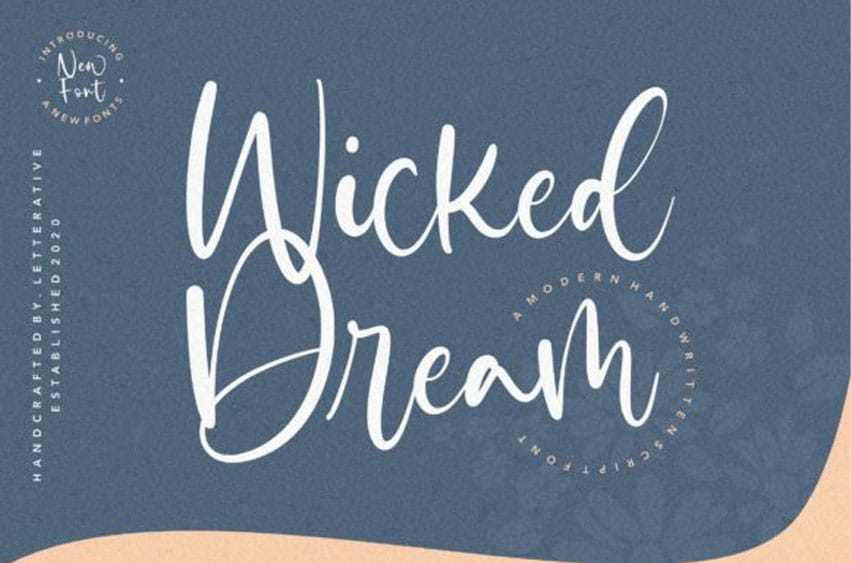
Wicked Dream Font is the best choice for creating eye-catching logos, branding, and quotes.
Every letter has a unique and distinct touch, which will make your design come alive!
Wicked Dream Font is the best choice for creating eye-catching logos, branding, and quotes.
Every letter has a unique and distinct touch, which will make your design come alive!